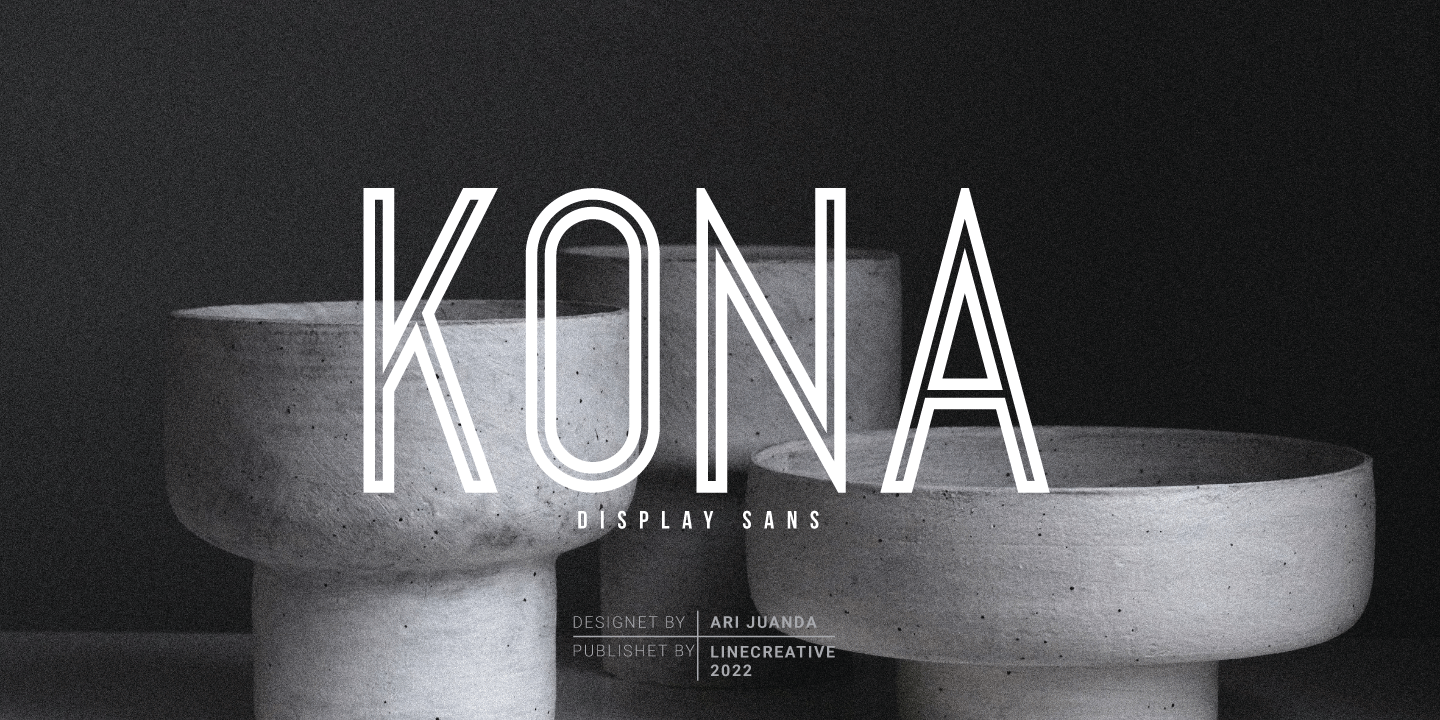
Kona Font is ideal for Hawaiian tourism branding, tropical resort materials, Pacific island campaigns, coffee plantation marketing, surf culture graphics, island lifestyle brands, Polynesian cultural projects, volcanic adventure tours, tropical wellness retreats, and paradise applications that celebrate the natural beauty and laid-back sophistication of Hawaiian island culture.
What makes Kona Font truly exciting is its authentic capture of Hawaiian tranquility and tropical sophistication that embodies the perfect balance of natural beauty and island elegance found in the volcanic paradise of the Pacific. This exceptional typeface combines tropical warmth with sophisticated simplicity, featuring flowing letterforms and island-inspired character that convey both relaxed authenticity and natural refinement. The font's Hawaiian personality and tropical elegance make it perfect for brands seeking to communicate island paradise, natural beauty, and the transformative power of connecting with the peaceful rhythms and breathtaking landscapes of Hawaiian culture.
The Kona Font family includes multiple weights and styles: Light, Regular, Medium, Bold, and Tropical variations designed for maximum island impact. Each family member maintains the distinctive Hawaiian character while offering flexibility for diverse tropical applications and island branding systems. The comprehensive character set supports Pacific typography needs and tropical design elements, making it suitable for international island communications.